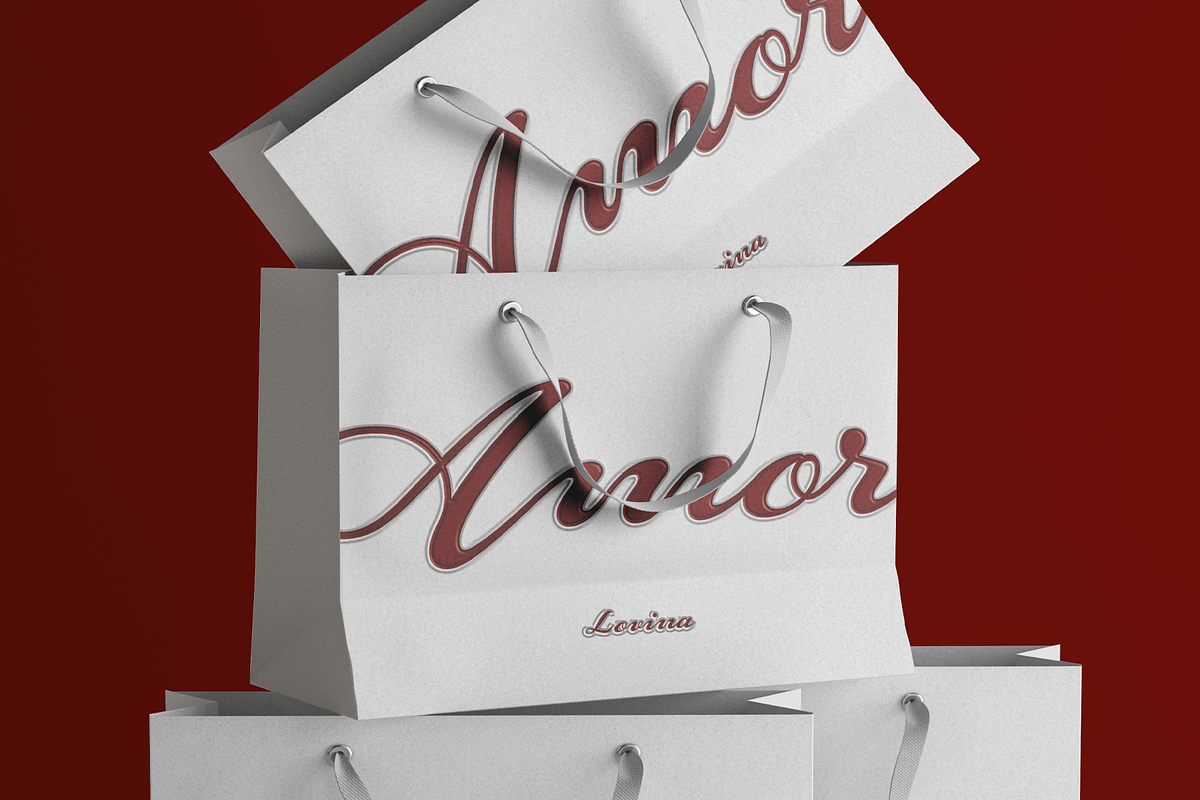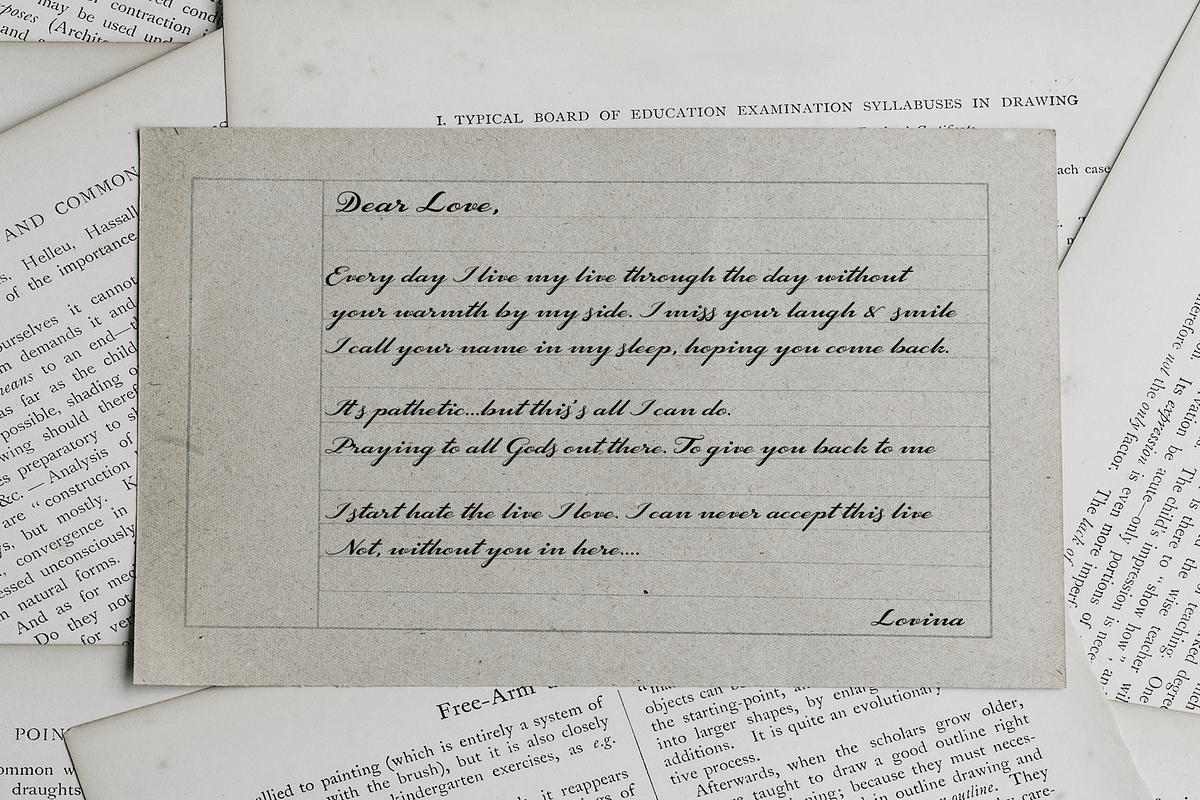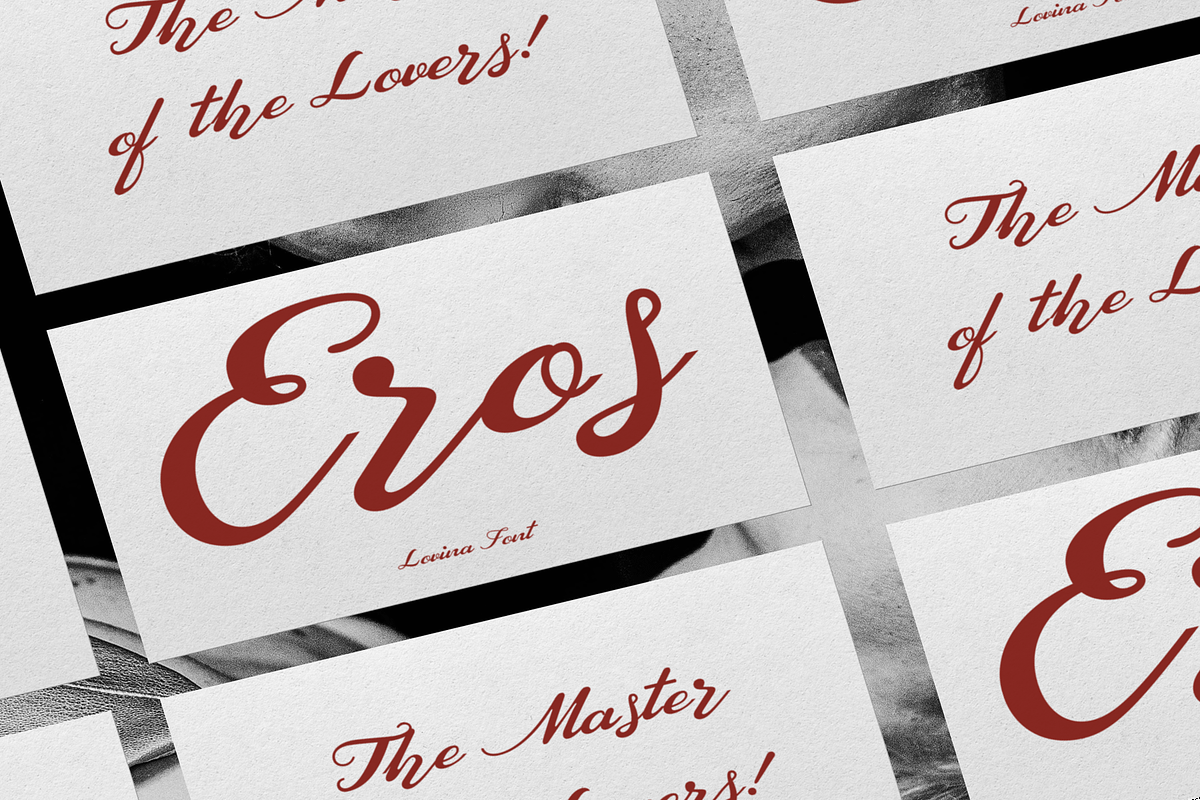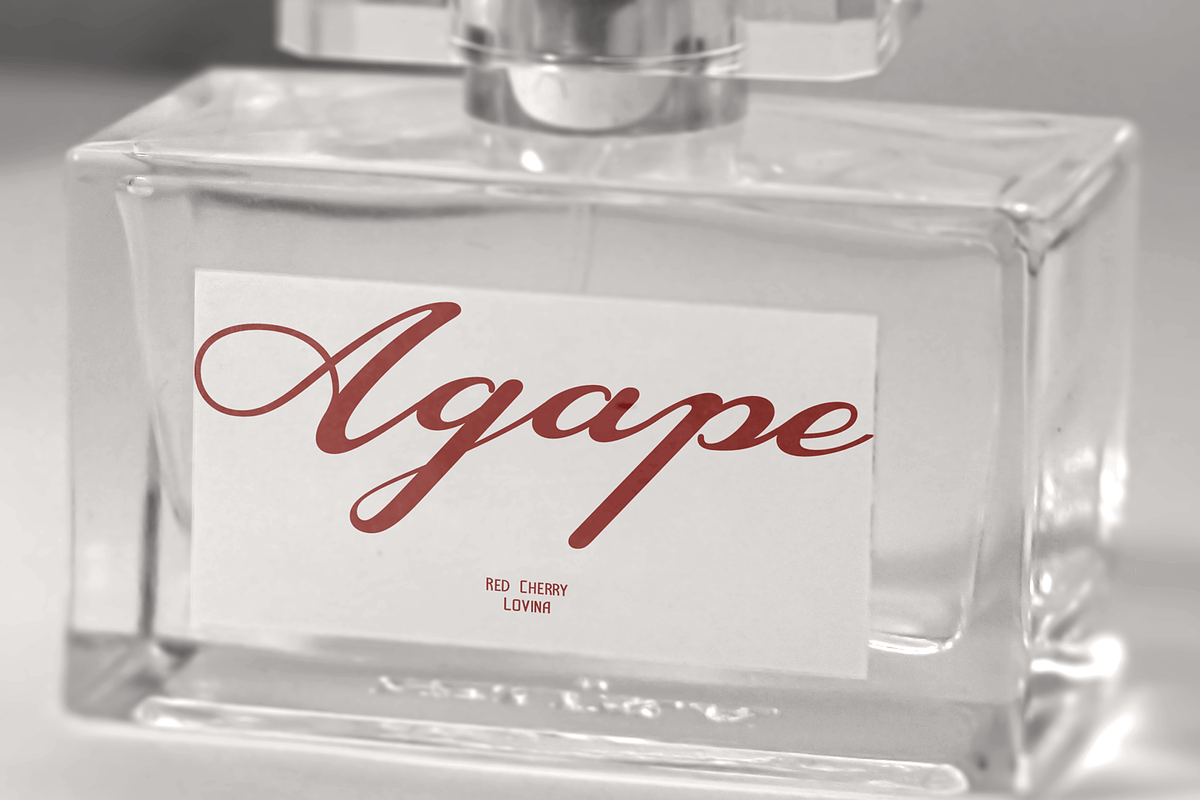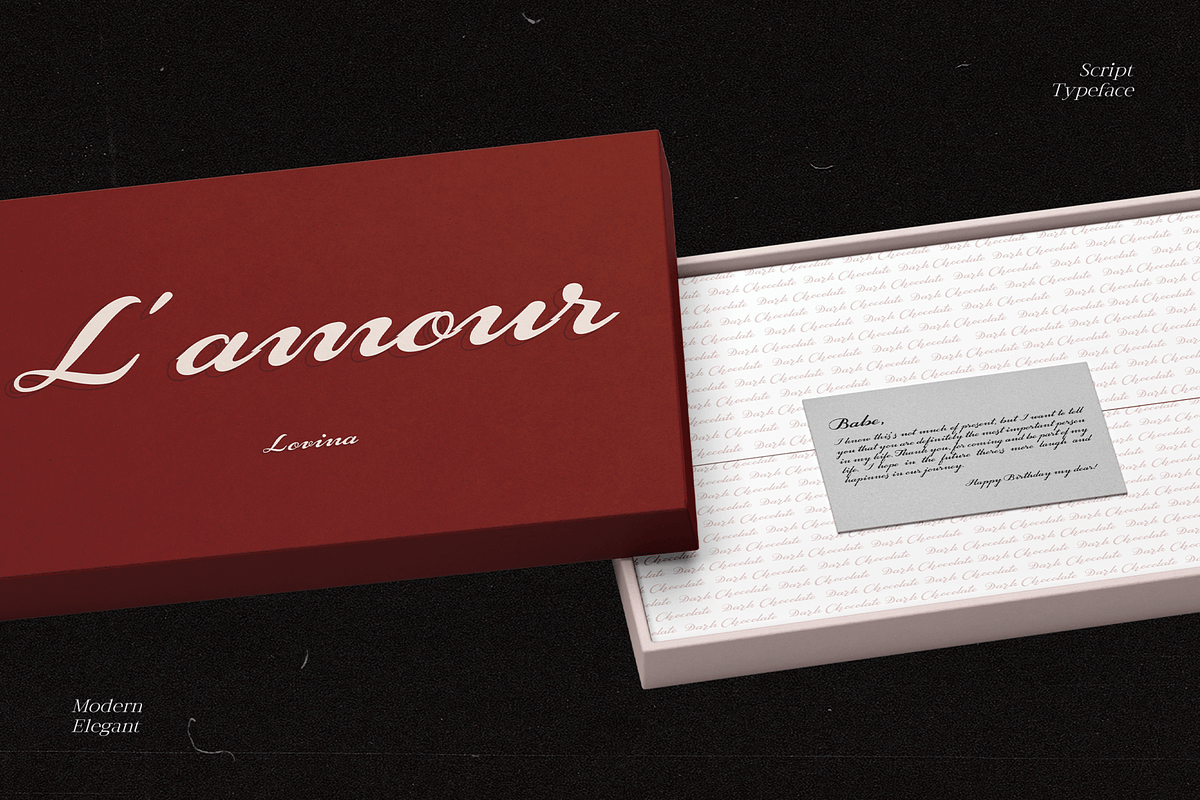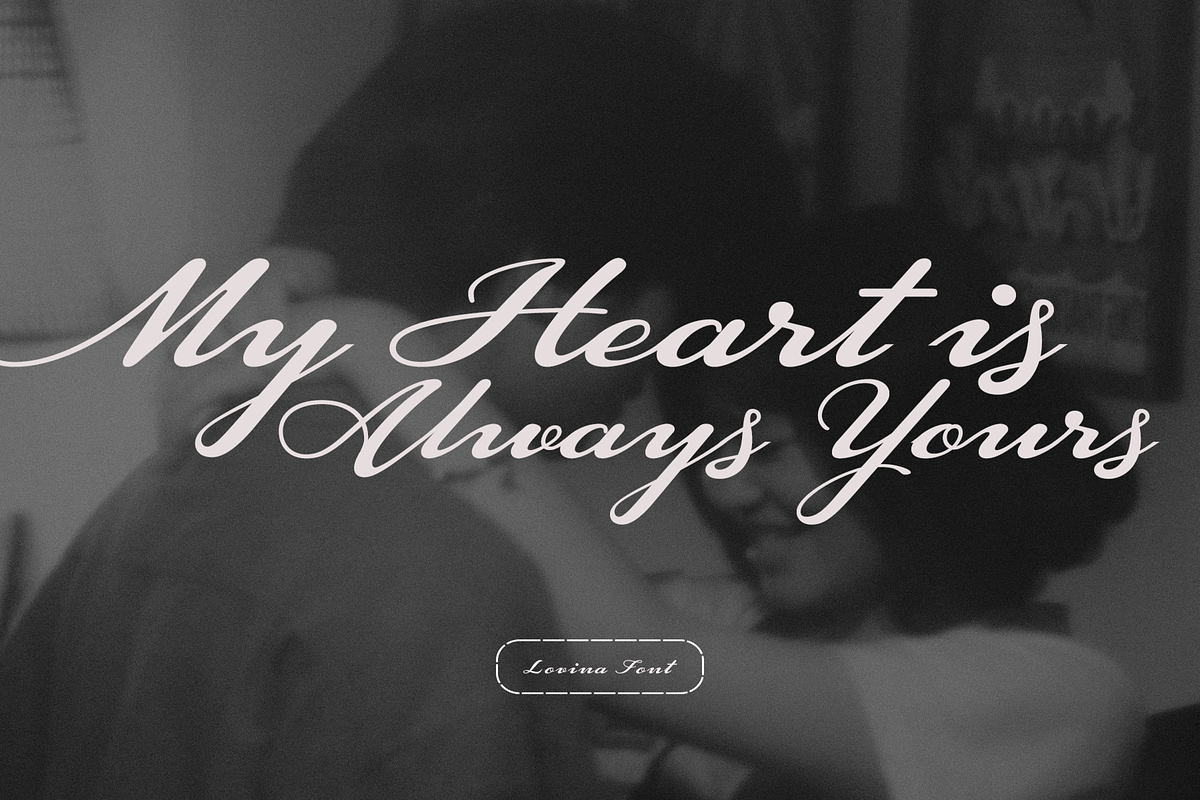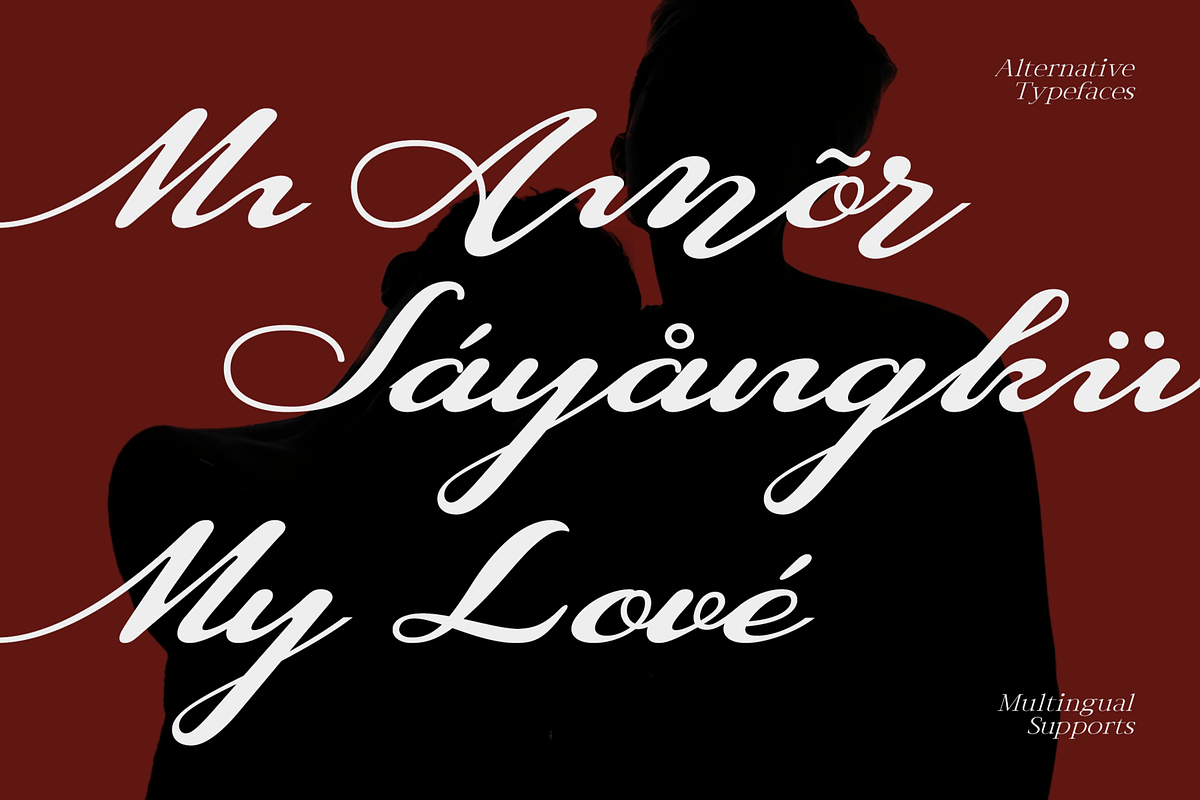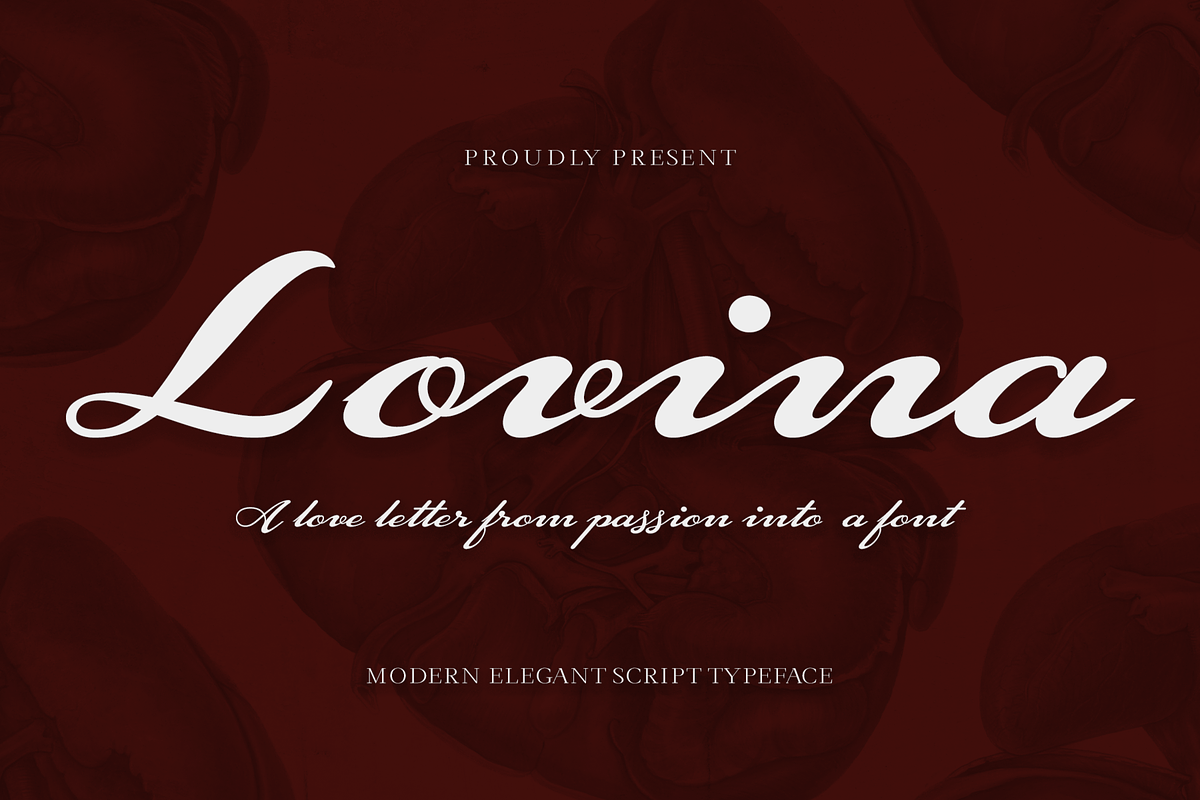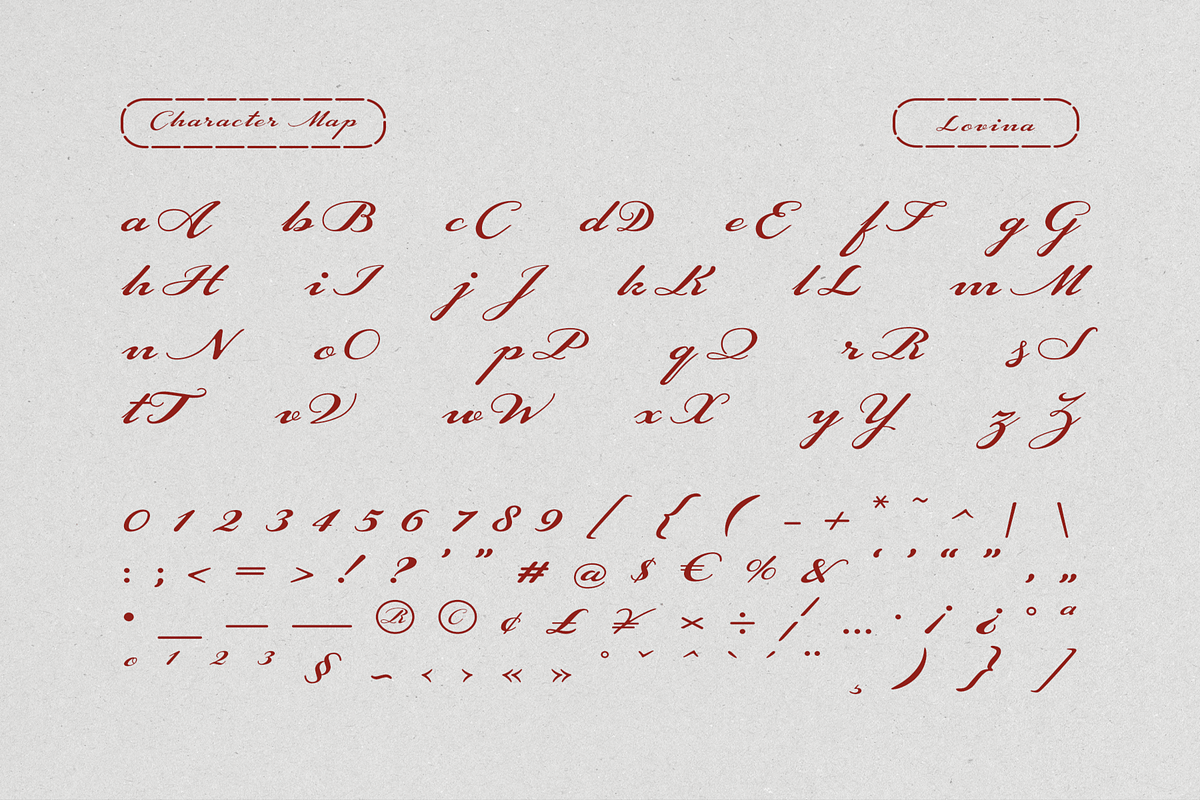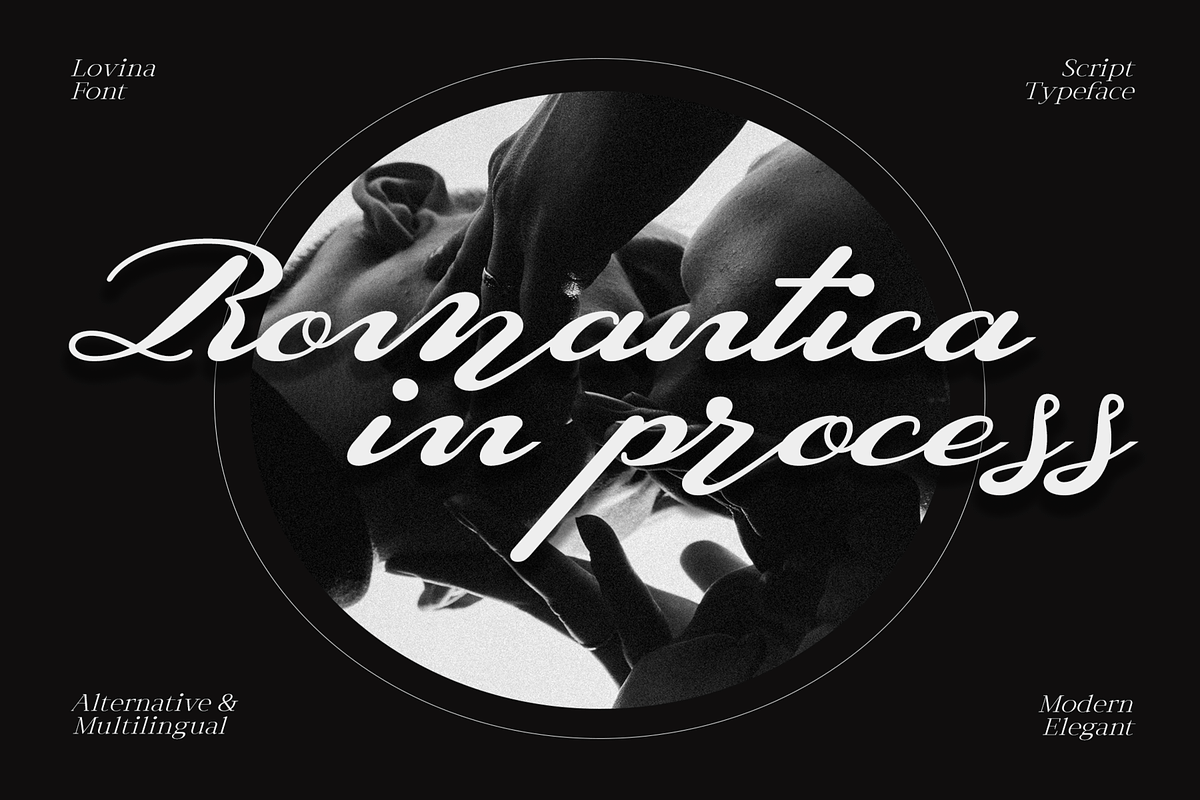
CF Lovina - Beautiful Elegant Script
Lovina is a graceful script font that exudes modern elegance. Its flowing strokes and clean lines create a sophisticated yet approachable feel, perfect for adding a touch of luxury to your designs.